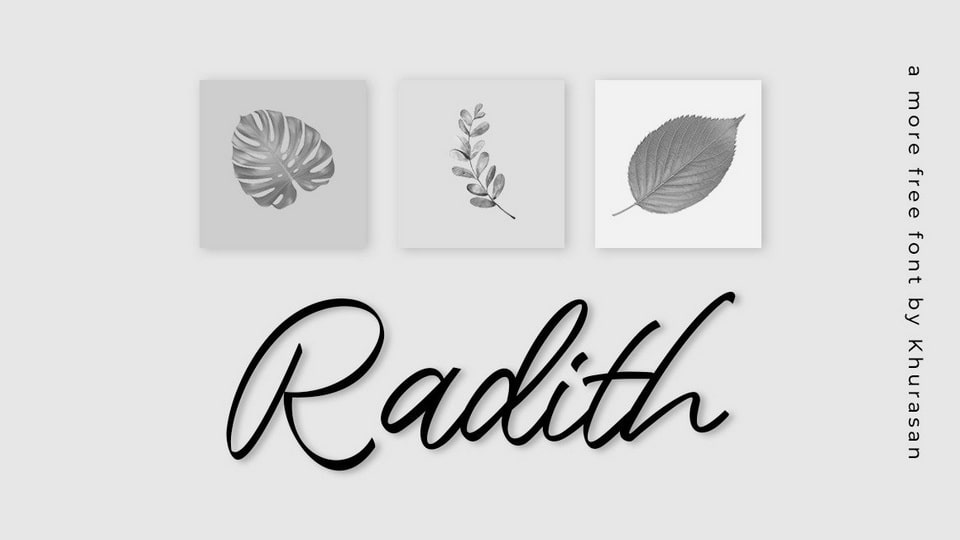
Download Radith font, a natural and organic handwritten typeface. Radith is perfect for posters, logos, magazines, book covers, banners, and many more.